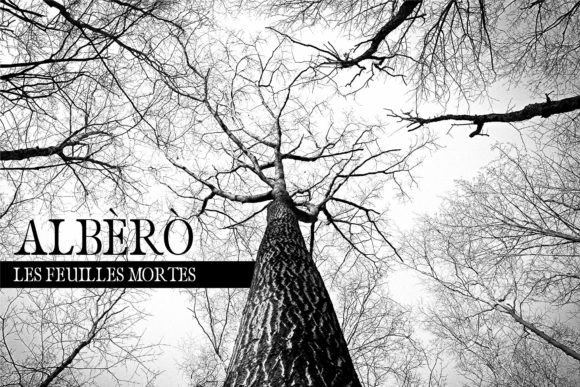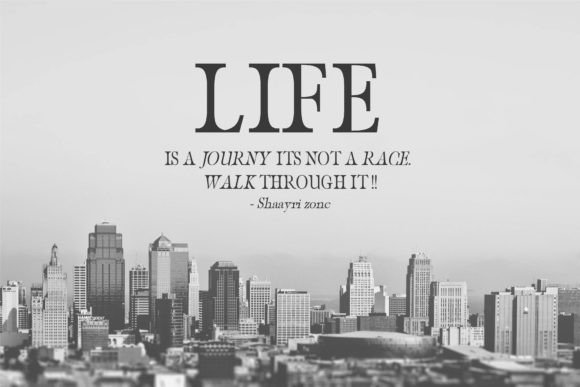
Adding a Touch of Sophistication to Your Designs
As a designer, have you ever stared at a blank page, struggling to find the perfect font to bring your vision to life? You’ve poured your heart and soul into the concept, but something’s missing – a certain je ne sais quoi that elevates your design from good to great.
Enter Classy Font, a stunning serif typeface designed to evoke the essence of luxury and elegance. With its minimalistic look and precision-crafted glyphs, this font is the perfect companion for designers seeking to create sophisticated and memorable designs.
Whether you’re crafting a high-end brand identity or a romantic product label, Classy Font is an invaluable asset that will undoubtedly elevate your creations to new heights. Trust us – once you incorporate it into your design arsenal, you’ll wonder how you ever managed without it.
Classy Font Key Features
- Unique Characteristics: Features a unique blend of elegance and sophistication, making it suitable for high-end branding and corporate designs.
Review of Classy Font
Overall, I have mixed feelings about “Classy Font”. While it’s a great option for certain projects, it falls short in other areas.
- Highly legible: The font is well-designed and easy to read, even at smaller font sizes.
- Classic feel: The font’s classic design makes it suitable for traditional or formal projects, such as business cards, letterheads, or menus.
- Limited expressiveness: Classy Font is a bit too straightforward and lacks the flair and personality that some designers might be looking for.
- No bold or italic variations: The font is available in only one weight, which can make it difficult to create visual hierarchy or emphasis.
- Not ideal for modern or edgy projects: The font’s classic design might not be the best fit for projects that require a more modern or avant-garde look.
Overall, I would recommend Classy Font for projects that require a traditional or formal feel. However, for projects that need a bit more creativity or flair, I might choose a different font.
Getting the Most Out of Classy Font
To get the most out of Classy Font, consider the following tips:
- Use it for headings and titles to add a touch of elegance.
- Combine it with other fonts for a unique and sophisticated look.
Classy Font is ideal for:
- Business cards and brochures.
- Marketing materials and social media graphics.
Q: Is Classy Font available in various font weights?
Yes, Classy Font comes in a range of font weights, including light, regular, medium, bold, and black. You can use these weights to create visual hierarchy and emphasis in your design.